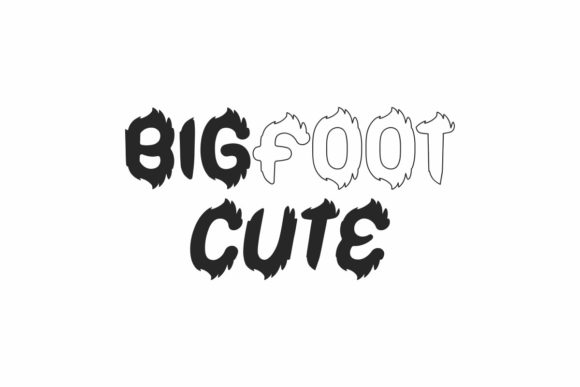
Step into a world of enchanting typography with Bigfoot Cute Comic Font, a whimsical display font that exudes charm and playfulness. This captivating creation by NihStudio instantly casts a spell of creativity, inviting you to embark on a typographic adventure.
Bigfoot Cute Comic Font is more than just a collection of letters; it's a pathway to unleash your imagination and craft designs that ignite smiles. Picture this: a playful logo that captures the essence of a joyful brand, a children's book that transports readers to a world of wonder, or a heartwarming greeting card that spreads cheer.
With its hairy, whimsical letters, Bigfoot Cute Comic Font is destined to become a beloved companion for your creative endeavors. It's a font that dances off the page, inviting you to explore new design horizons and captivate your audience with its undeniable charm.